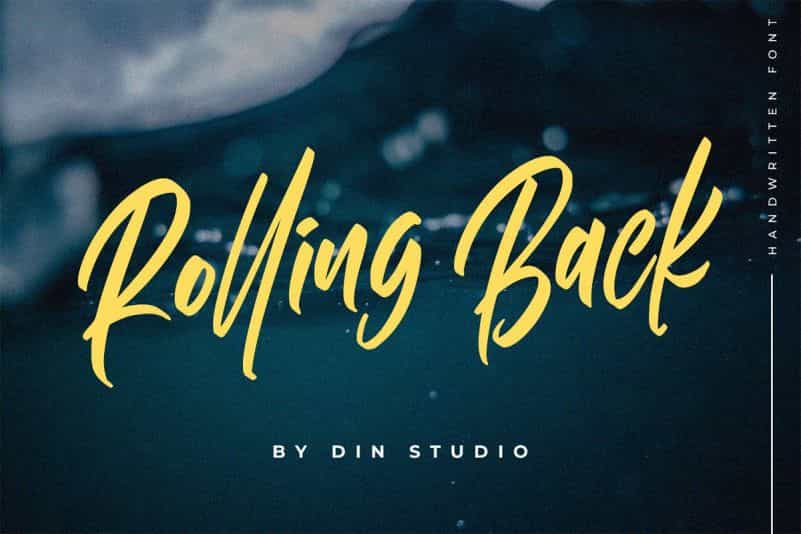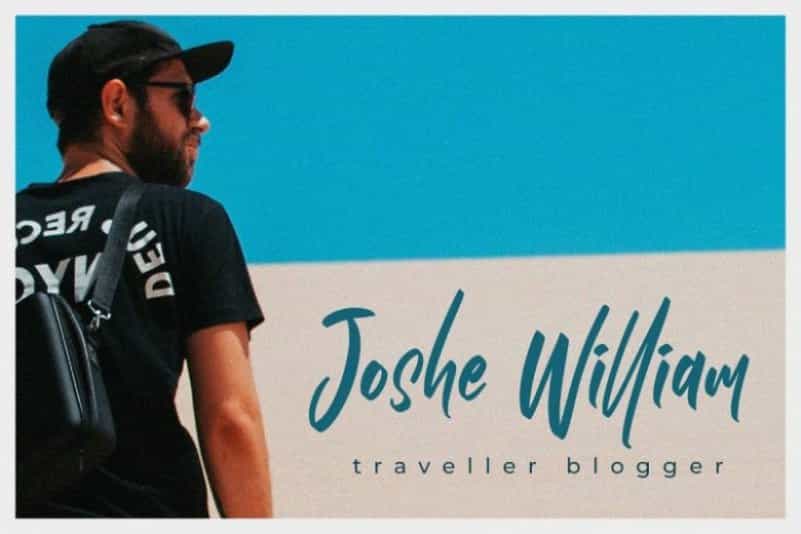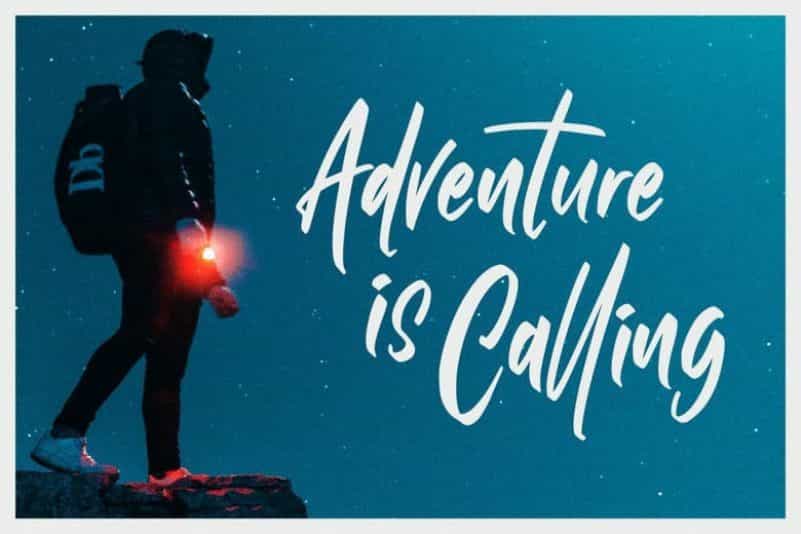
Introducing Rolling Back Script Font. This is handwritten font. It’s slender, feminine and classy, yet still friendly. This font is perfect for adding an elegant charm to any design projects. Rolling Back is designed and shared by Din Studio. Rolling Back Font made with naturally handwritten.